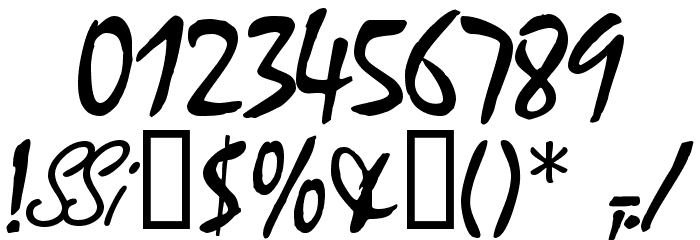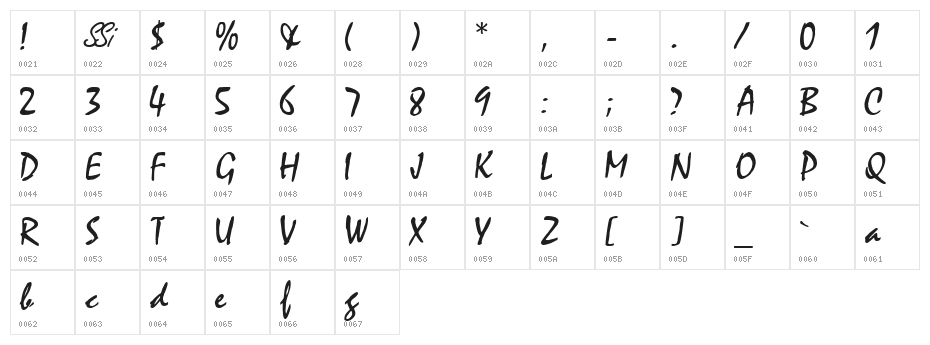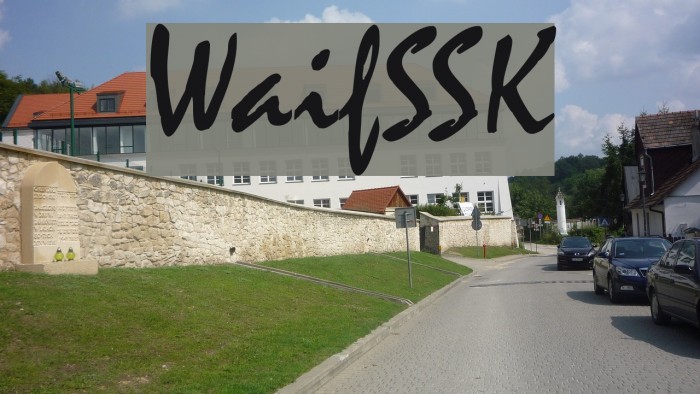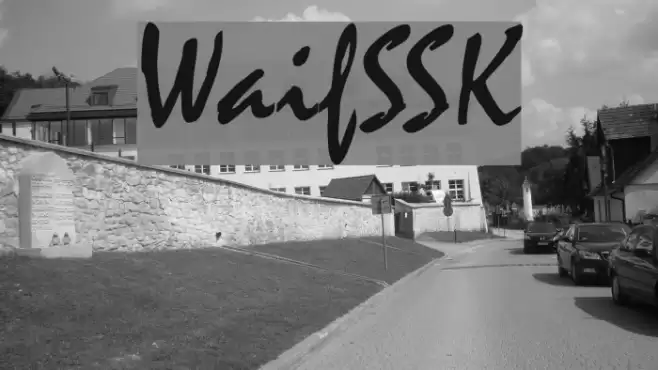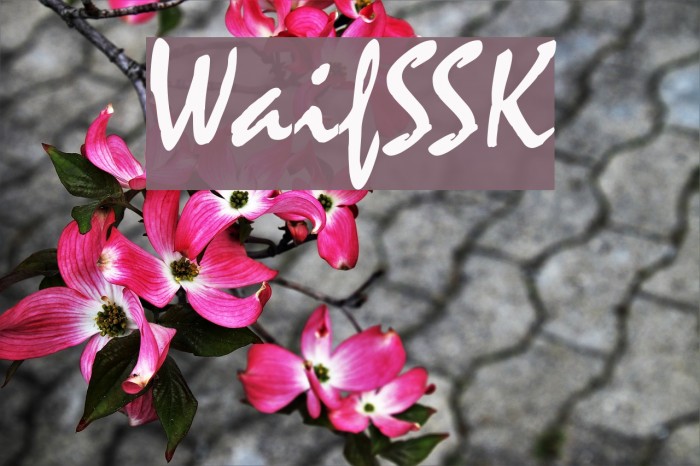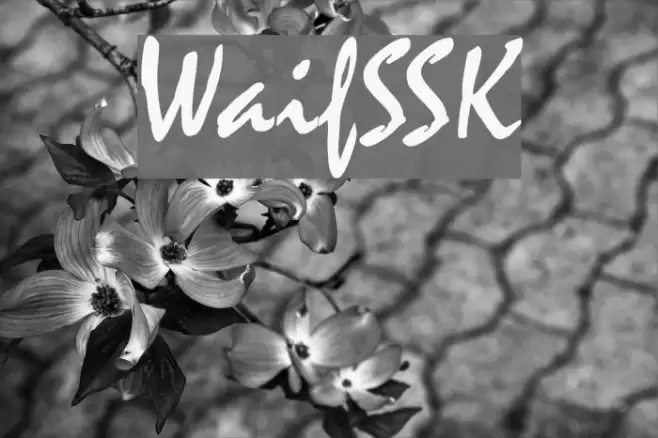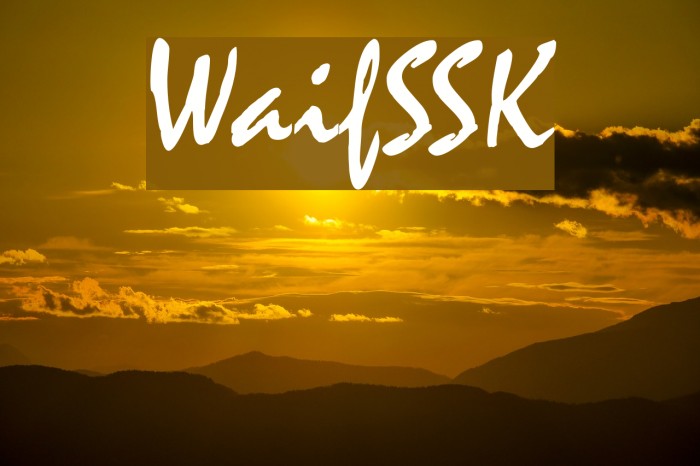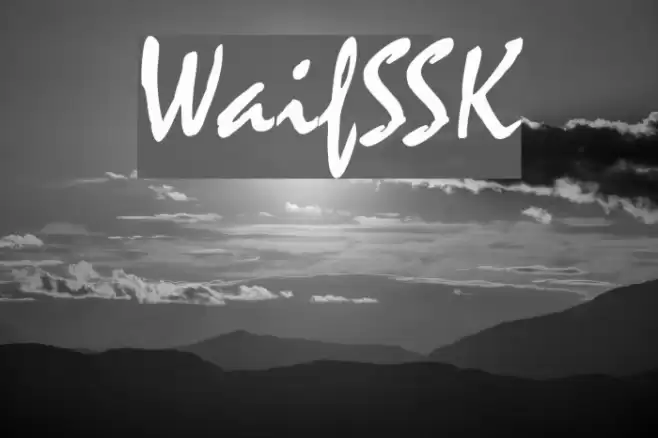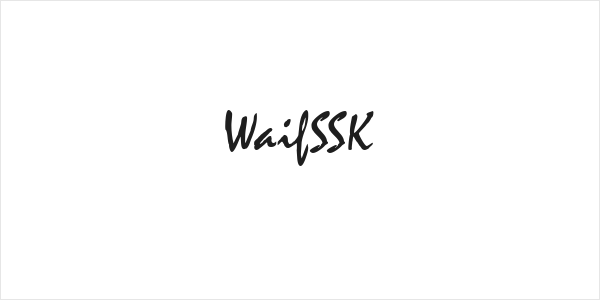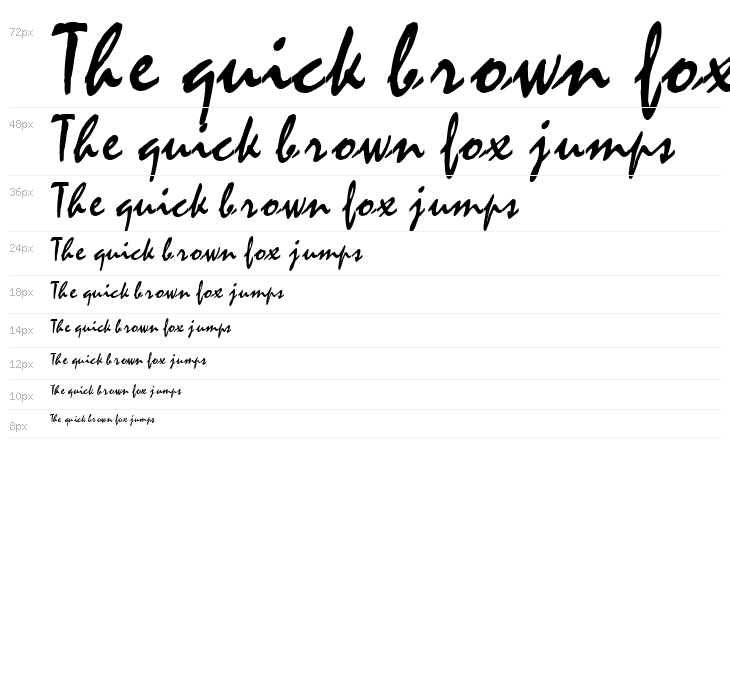
WaifSSK Font
WaifSSK Description
This font features a dynamic and expressive handwritten style, characterized by its fluid and cursive letterforms. The uppercase letters are bold and slightly slanted, giving a sense of movement and energy. The lowercase letters maintain a consistent flow, with a natural and casual appearance. The numerals are clear and legible, matching the overall handwritten aesthetic. Special characters are creatively integrated, adding to the font's versatility. The strokes vary in thickness, providing a medium contrast that enhances readability while maintaining an artistic flair.
| Proposed Projects | Ideal for creative projects such as greeting cards, invitations, personal branding, and artistic posters. |